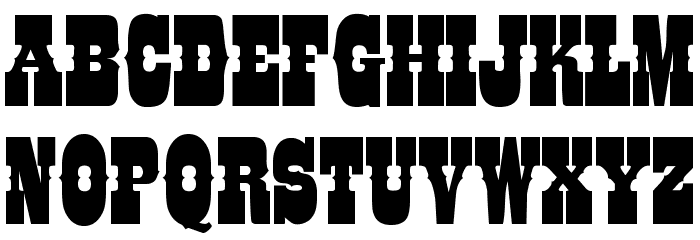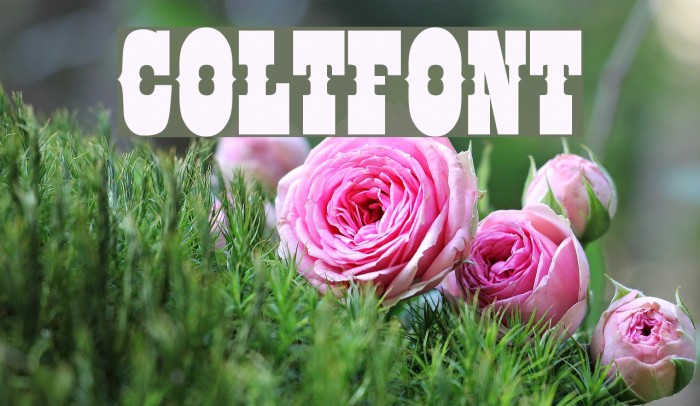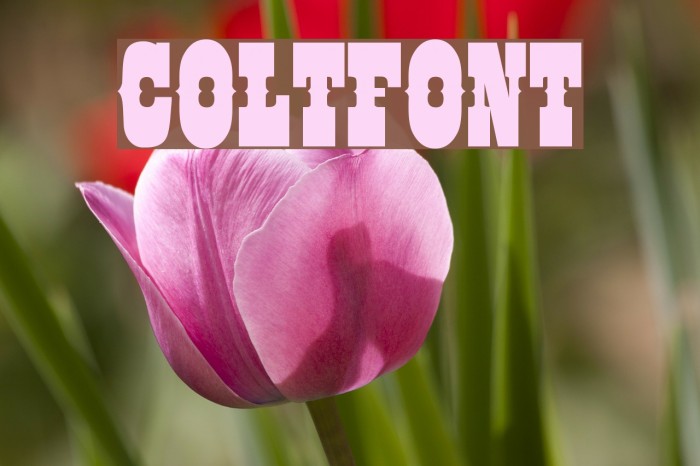
COLTFONT Font
This bold and striking font features a unique design with thick, blocky letters that have a distinct Western or vintage feel. The letters are heavily weighted, with a strong presence that commands attention. The font's style is reminiscent of old-fashioned wanted posters or saloon signage, making it ideal for projects that require a touch of nostalgia or a bold statement. The characters are uniformly wide, with minimal spacing between them, enhancing the font's solid and impactful appearance. The lack of lowercase letters and special characters suggests a focus on uppercase display, perfect for headlines or titles.
A bold, vintage-style font with thick, blocky letters ideal for Western-themed designs.
- Proposed Projects: Perfect for posters, branding, logos, and any design requiring a vintage or Western aesthetic.
- Character Spacing: Tight
- Overall Style: Vintage